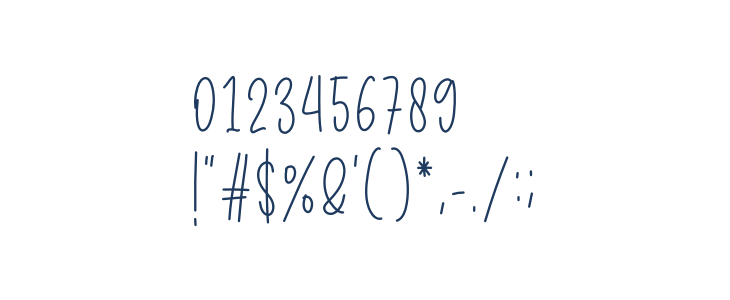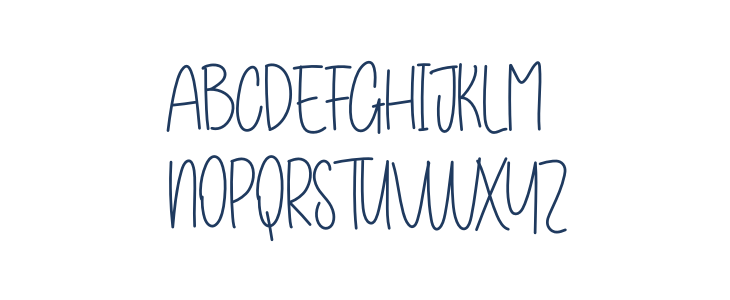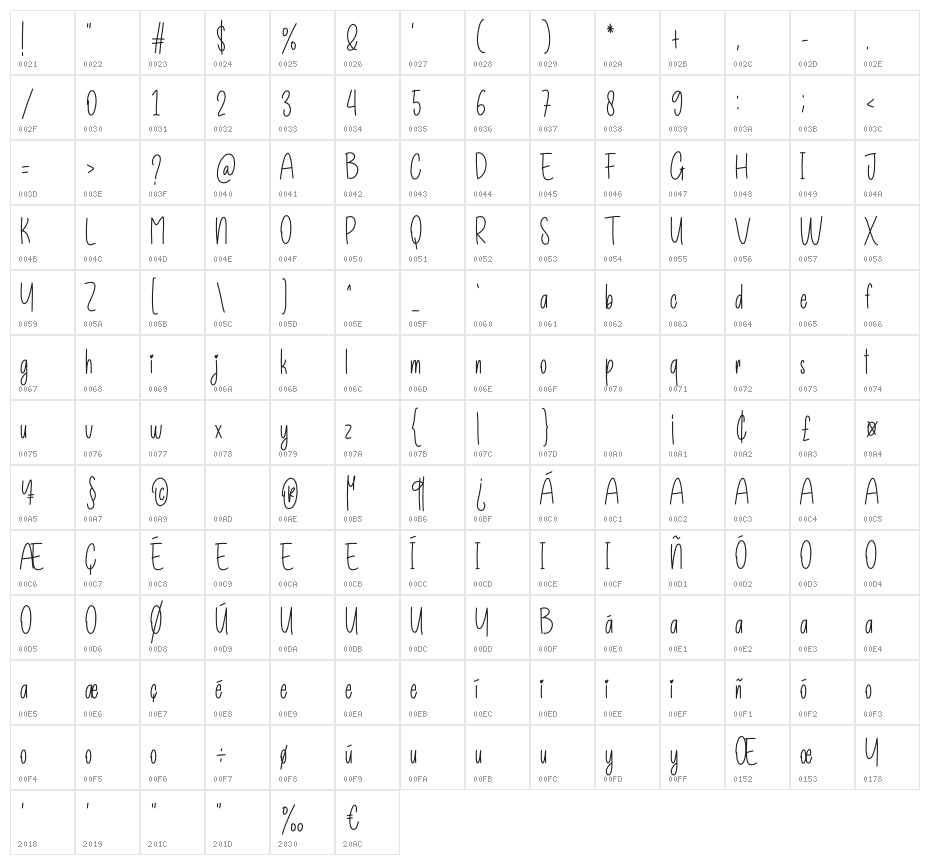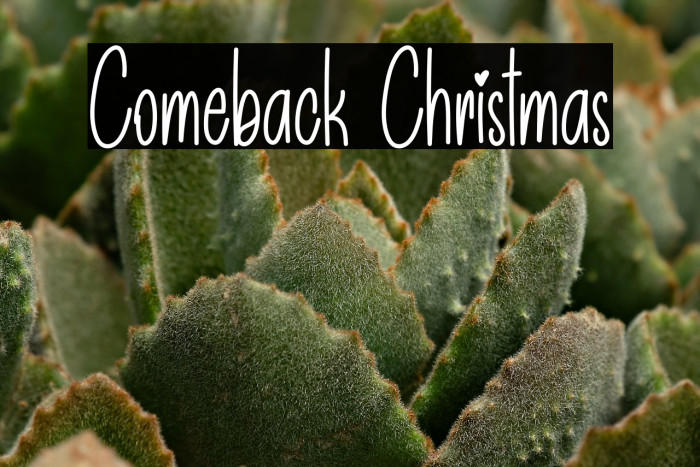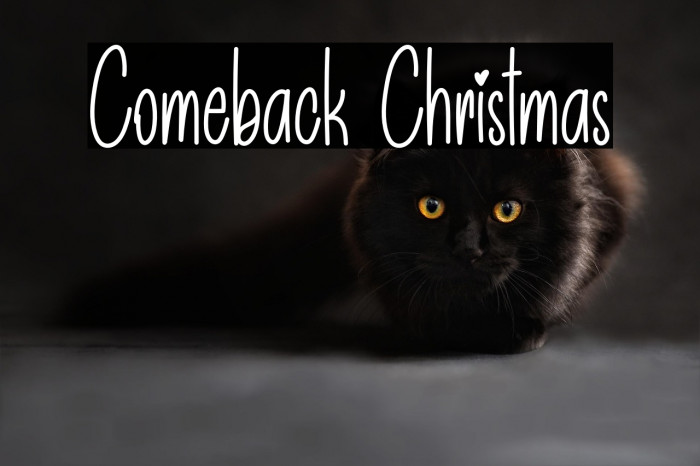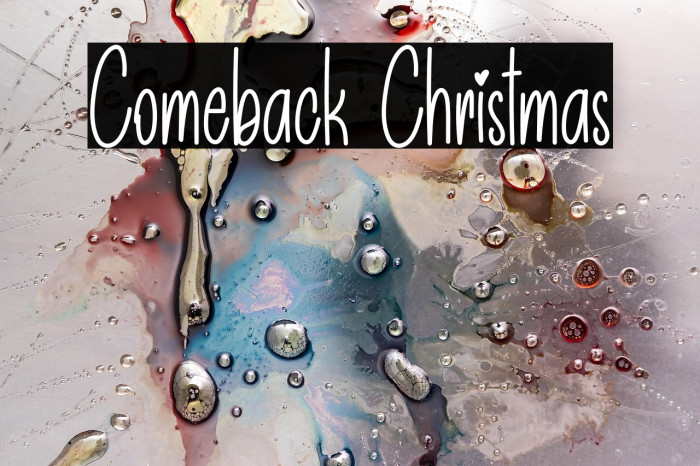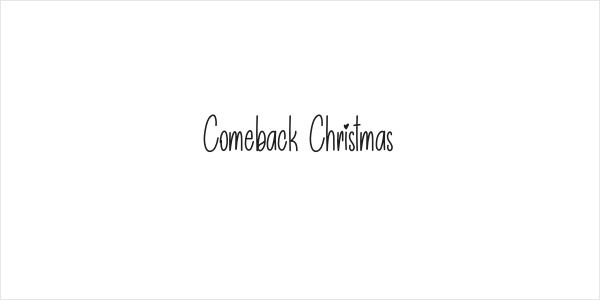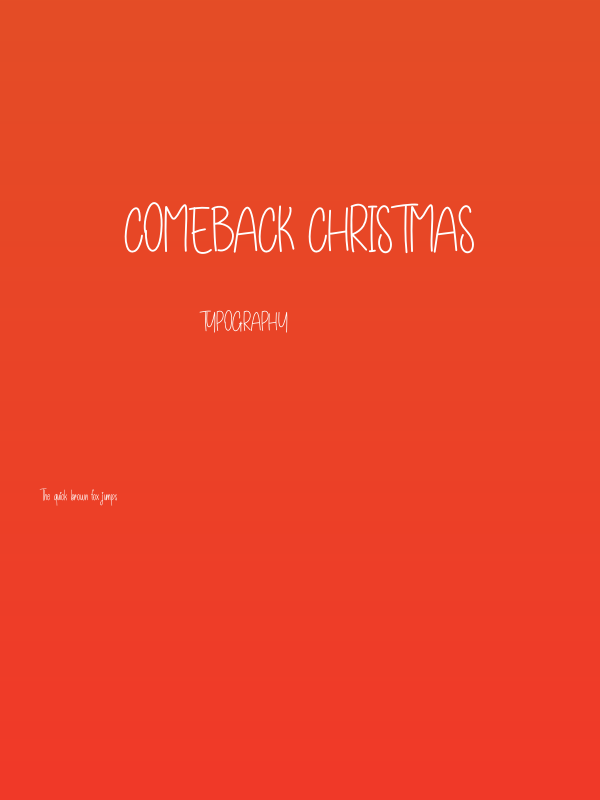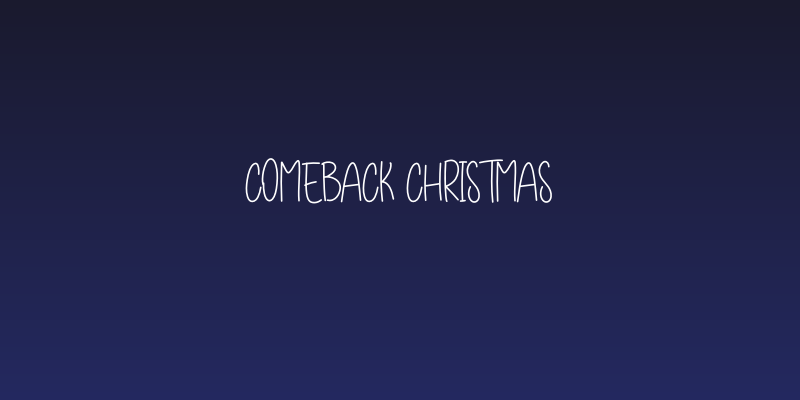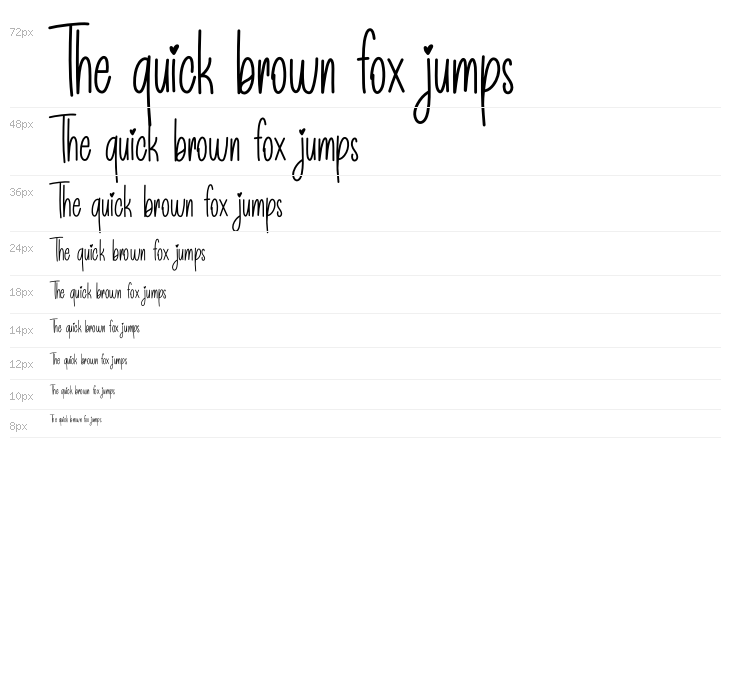
Comeback Christmas Font
Comeback Christmas Description
A tall, narrow handwritten font with playful, irregular strokes and a casual, whimsical feel. The characters are monoline with consistent stroke width, and the overall appearance is friendly and informal.
| Overall Style | Decorative, Playful, Whimsical |
| Use Case | Headlines, Greeting cards, Invitations, Posters |
| Proposed Projects | Greeting cards, children's books, holiday invitations, playful branding, social media graphics. |